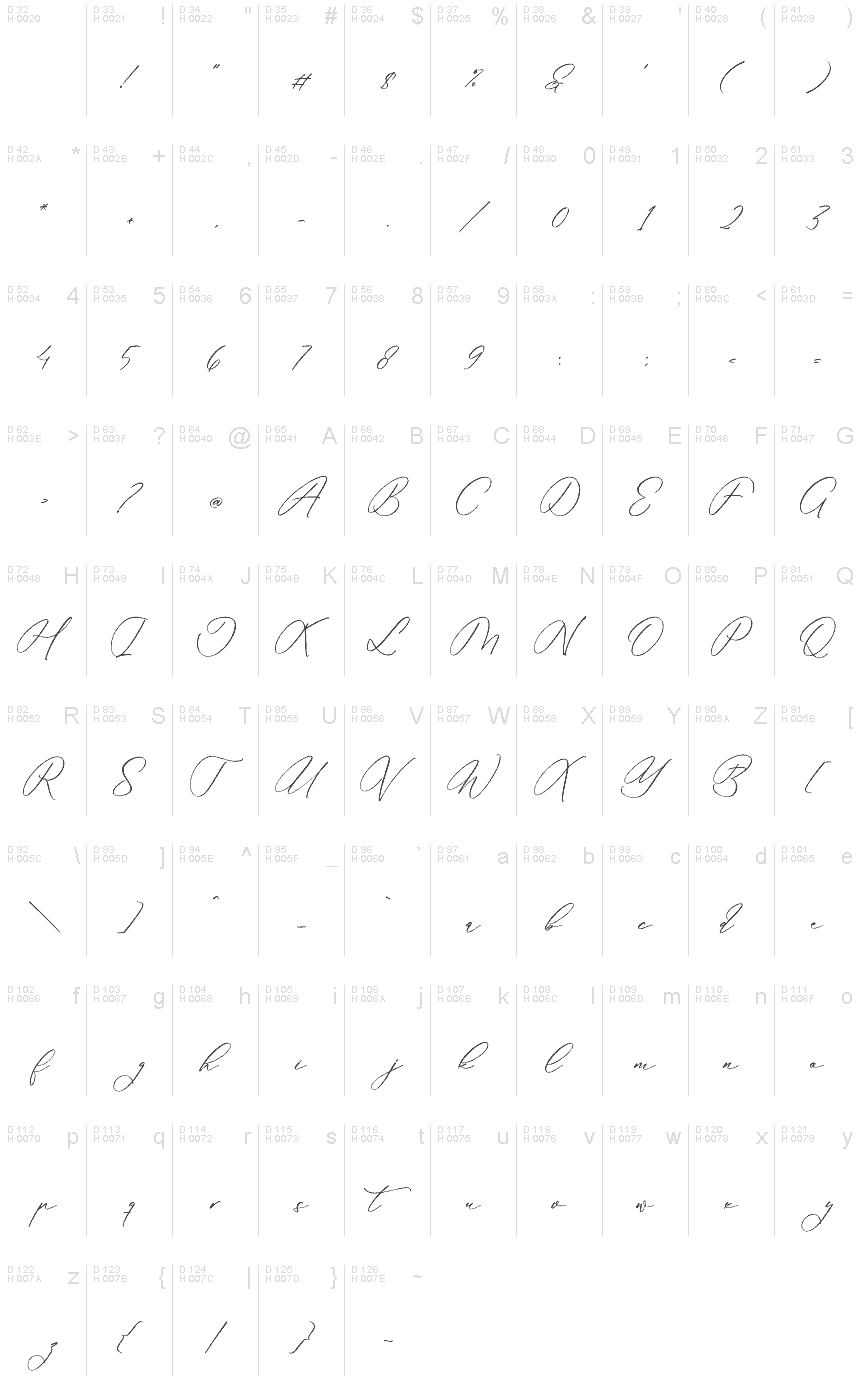
Anticka Whitnes
Anticka Whitnes font is a graceful handwritten typeface by Storytype Studio with an elegant, personal touch. The light font embodies modern elegance and a sophisticated charm. Curved lines and fluid strokes adorn Anticka Whitnes with a harmonious visual appearance, making it a lovely resource whenever classic balance is required.